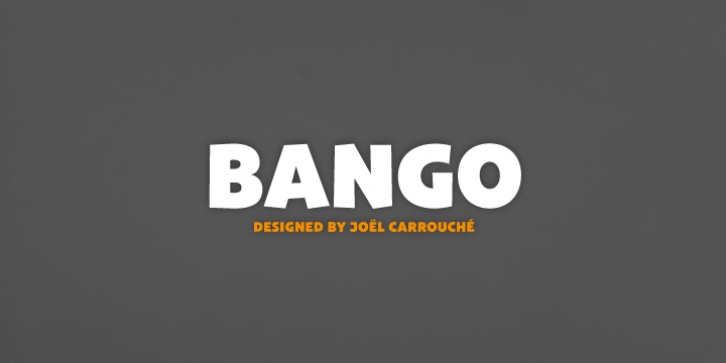
Bango downloadDesigner: Joël Carrouché
Publisher: JCFonts
Bango is a lively, heavyweight unicase font with a strong cartoon feel. As a massive display typeface, it suits well for poster design, packaging, and anything that needs to draw attention - in an informal way.